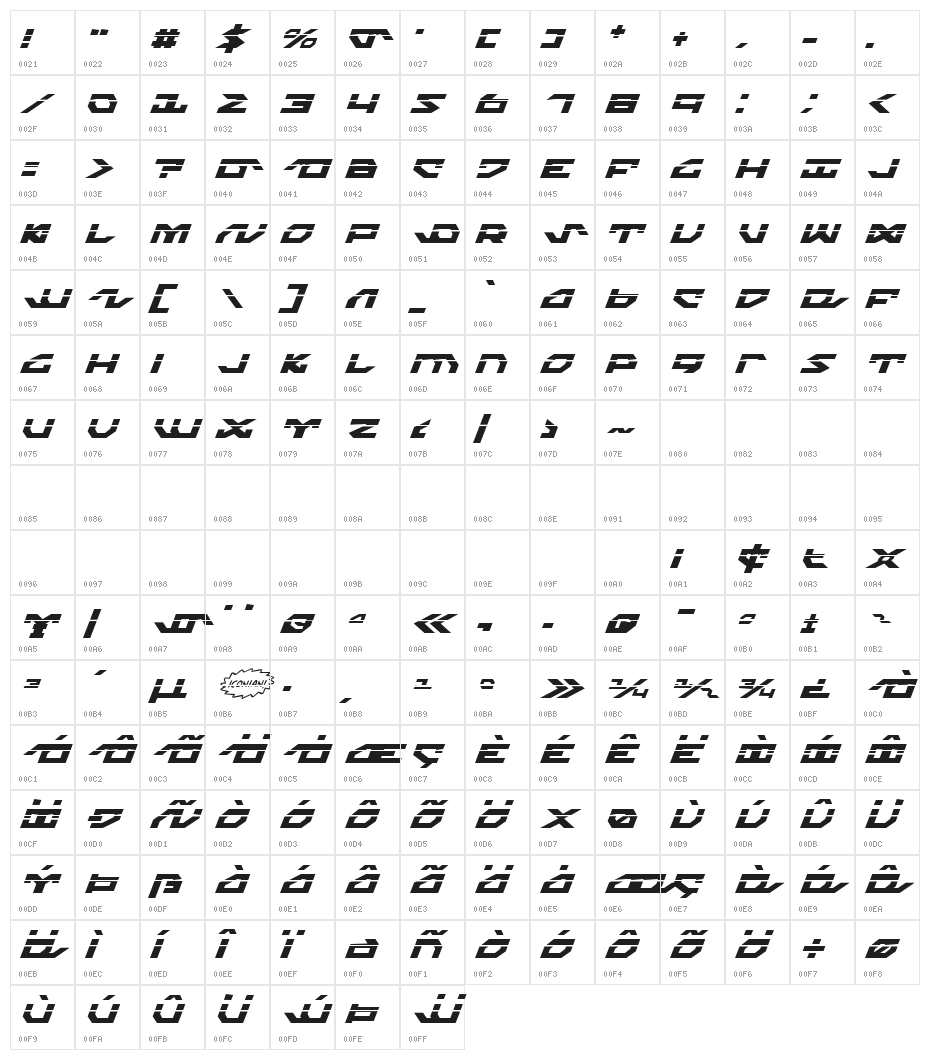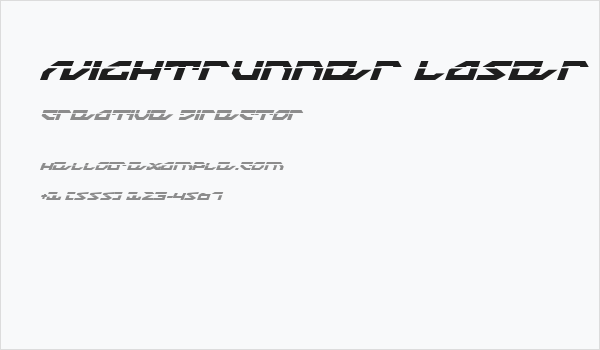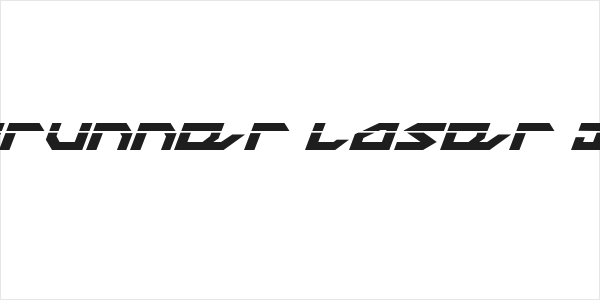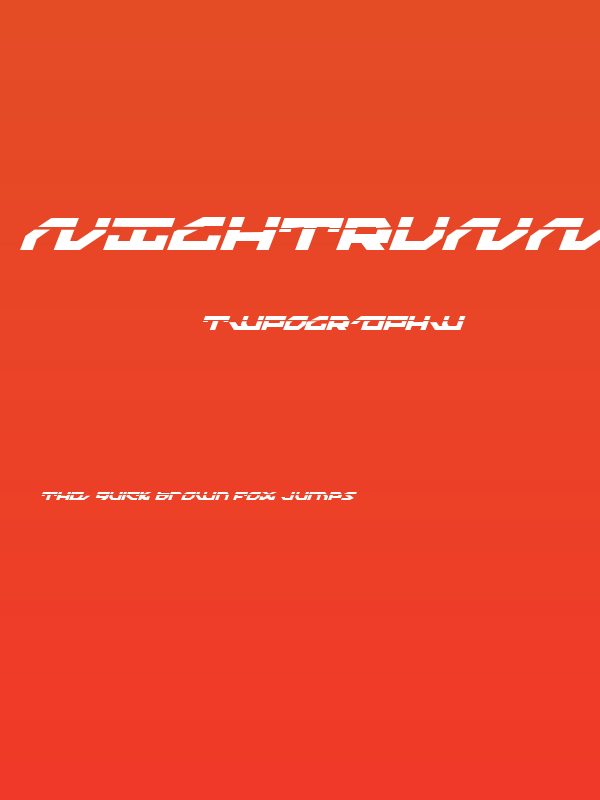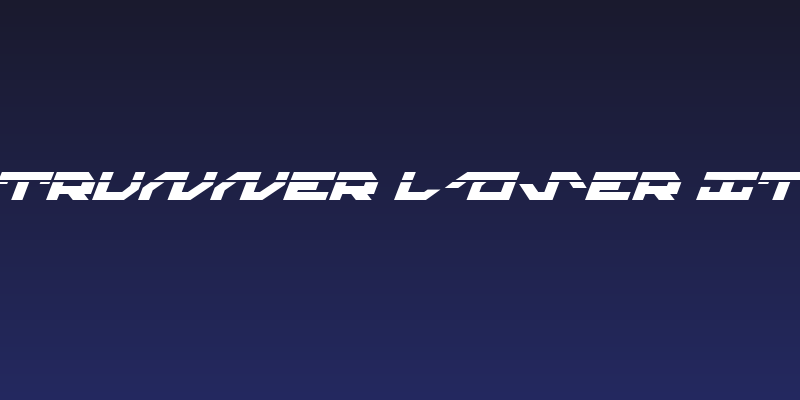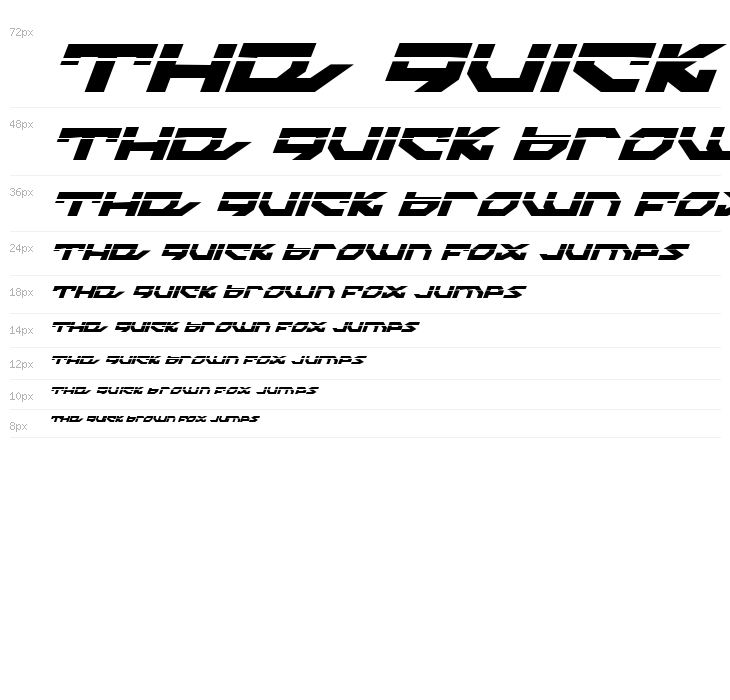
Nightrunner Laser Italic Font
Nightrunner Laser Italic Description
This font features a futuristic and angular design, characterized by sharp edges and a dynamic slant that gives it a sense of motion and speed. The letters are bold and geometric, with a consistent italic style that enhances its modern and high-tech appearance. The uppercase and lowercase letters maintain a uniform style, while the numerals and special characters integrate seamlessly with the overall design. This font is ideal for projects that require a cutting-edge and energetic aesthetic, such as technology branding, sci-fi themes, or gaming interfaces.
Proposed ProjectsIdeal for technology branding, sci-fi themes, gaming interfaces, and dynamic posters.